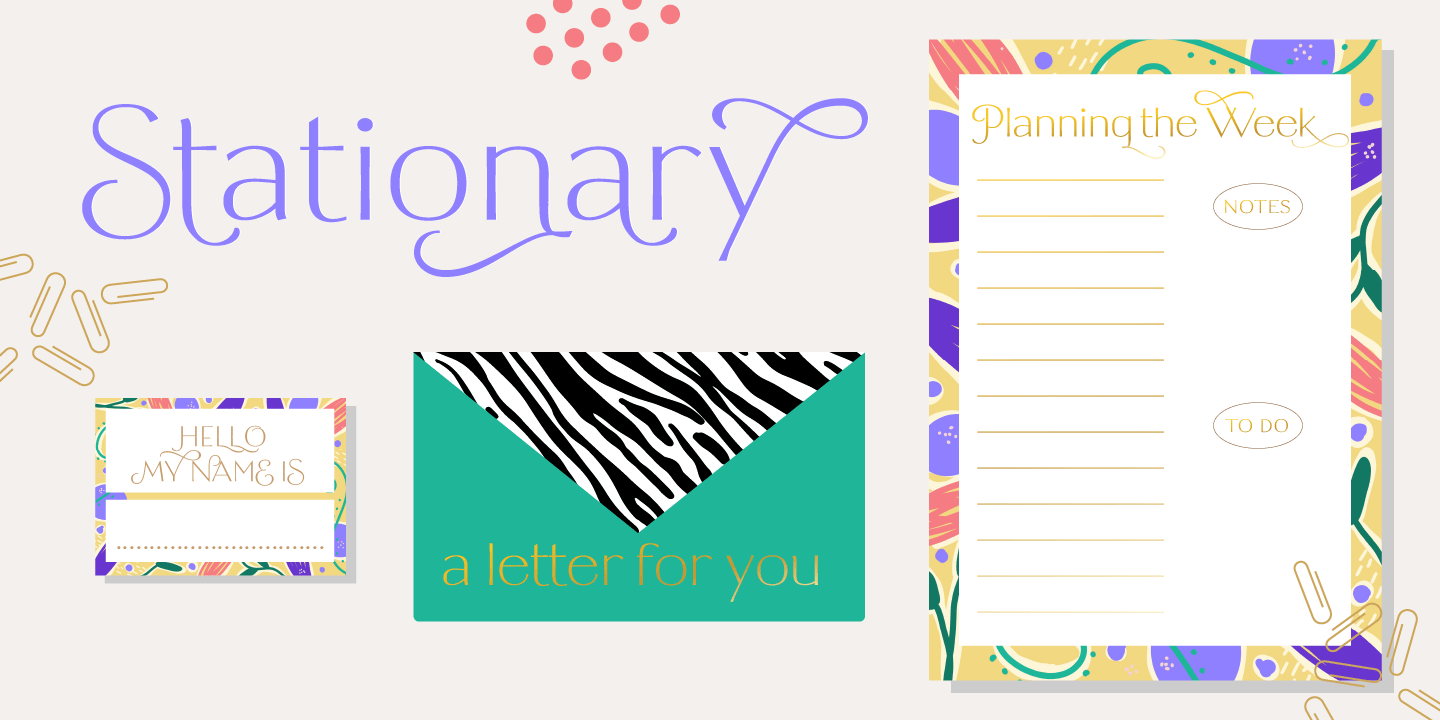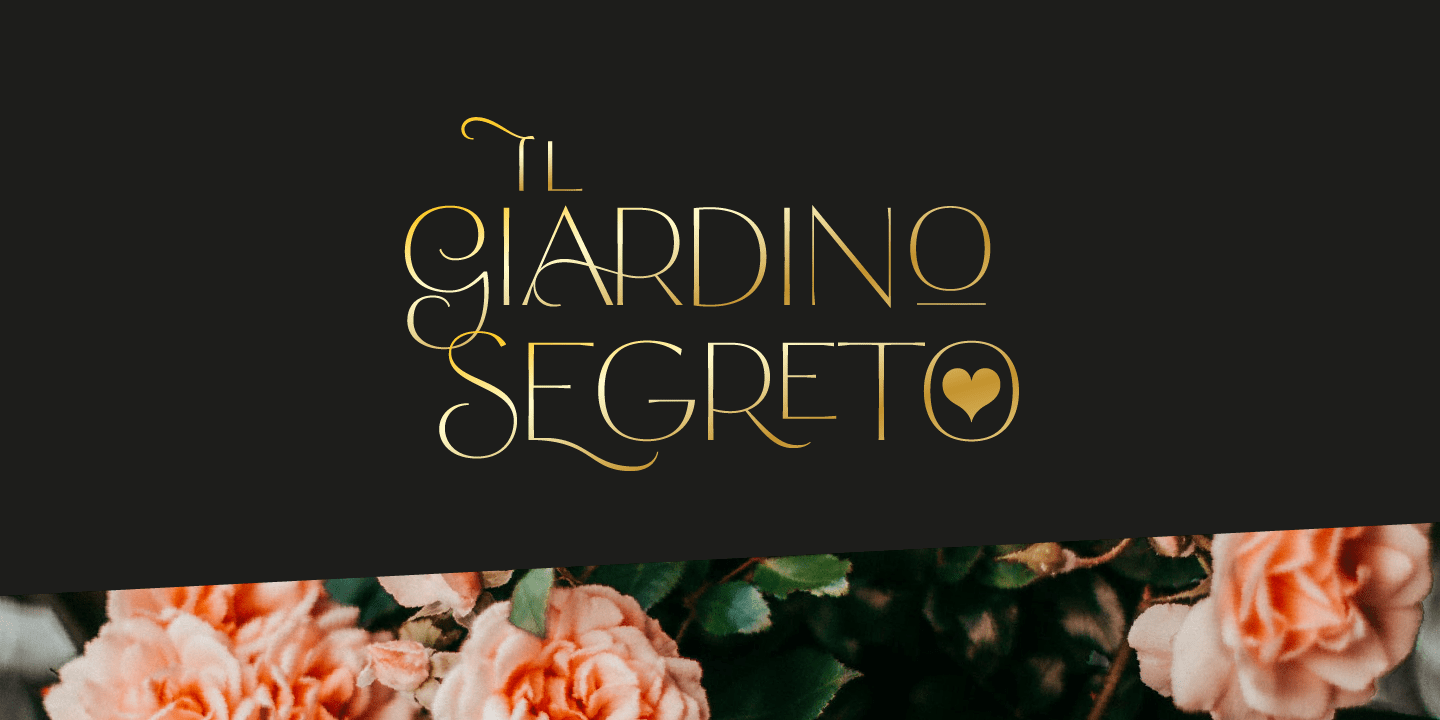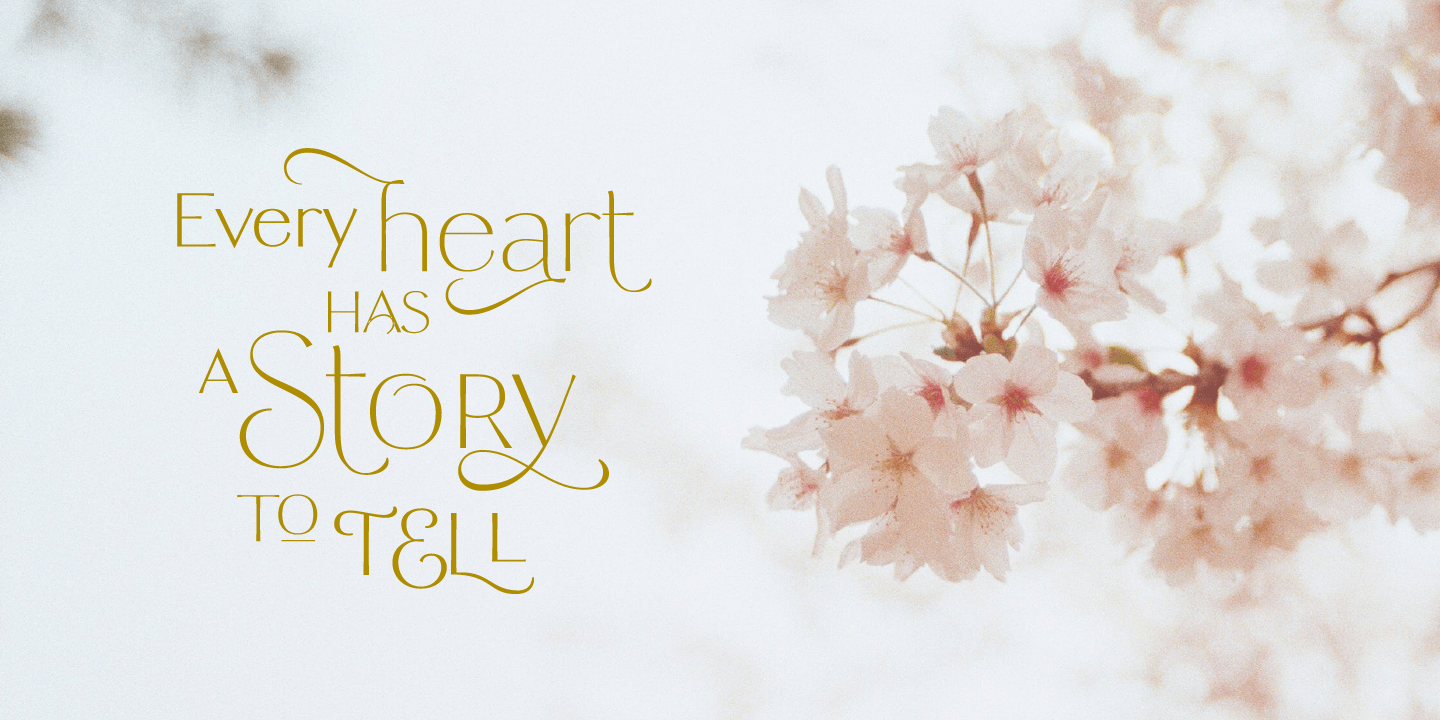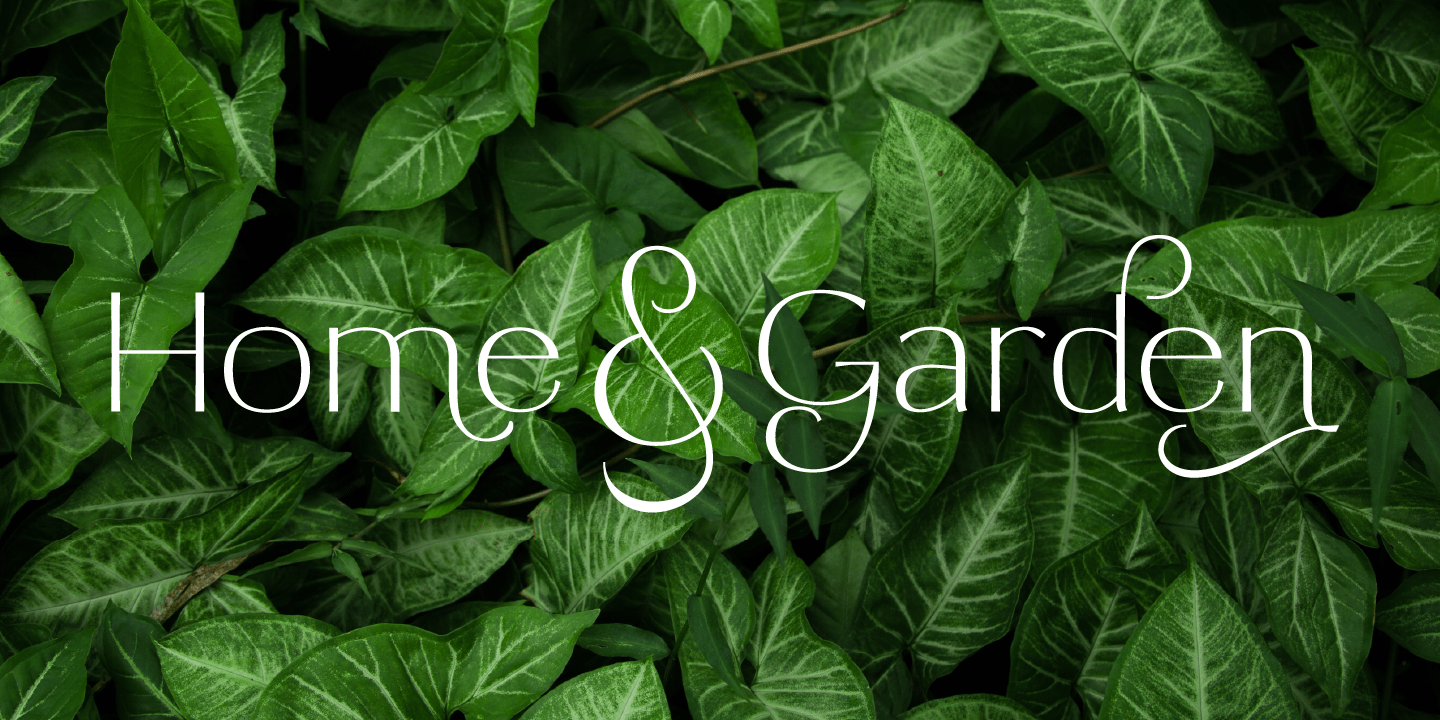
About Tresor
Tresor is a new Sans Serif font family with contrast. It has a classic look and a romantic twist thanks to its extended set of decorative alternates and ligatures. Tresor, meaning 'treasure' in French, is full of jewels, including a beautiful…